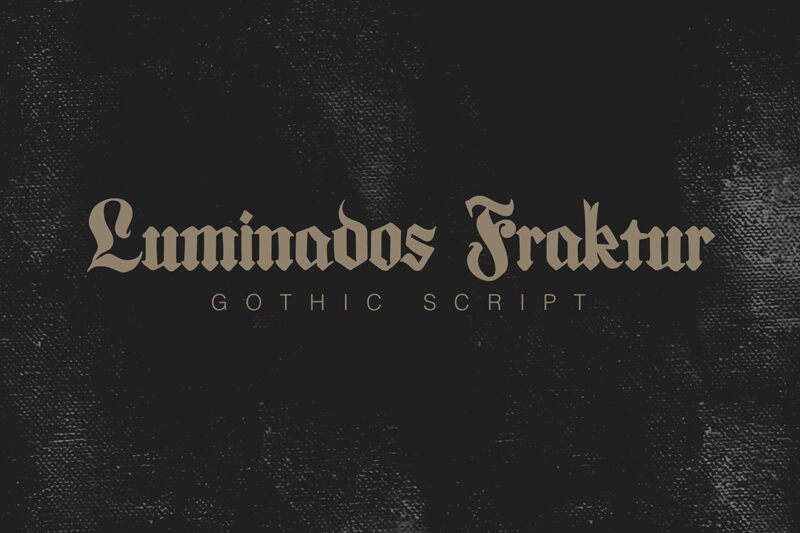
Luminados Fraktur
Luminados Fraktur font is a gothic-style typeface by Mofr24, inspired by classical fraktur of the 19th century. This ornamental and elaborate font evokes a sense of history and tradition with strong contrast and artistic lines. Well-suited for medieval and classical applications, it adds a vintage or ceremonial feel to any project with its formal and decorative design.
This free gothic font can enhance classical headlines, advertising pieces, or artistic projects. Utilize it in invitations for formal events or branding for products seeking that timeless, classic touch. Other use cases include book covers, packaging design, logos, posters, business cards, labels, apparel designs like t-shirts or hoodies as well as tattoos!